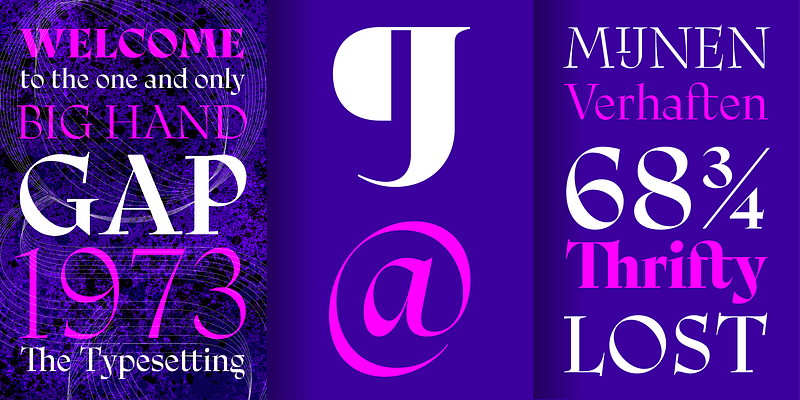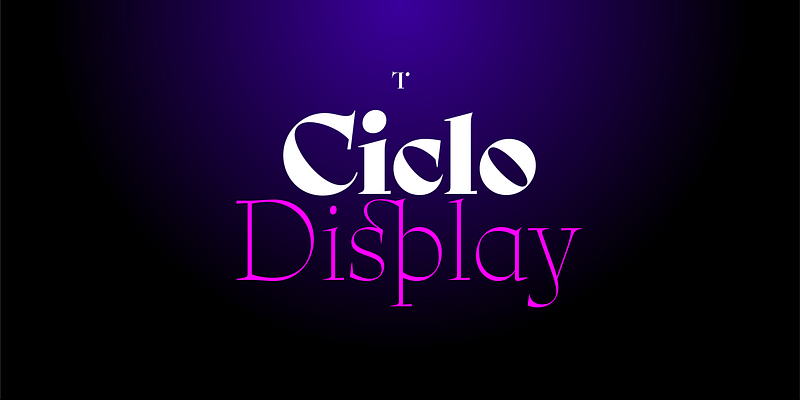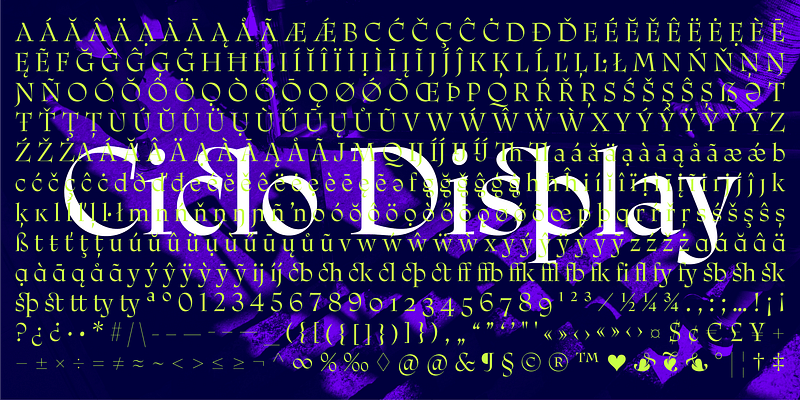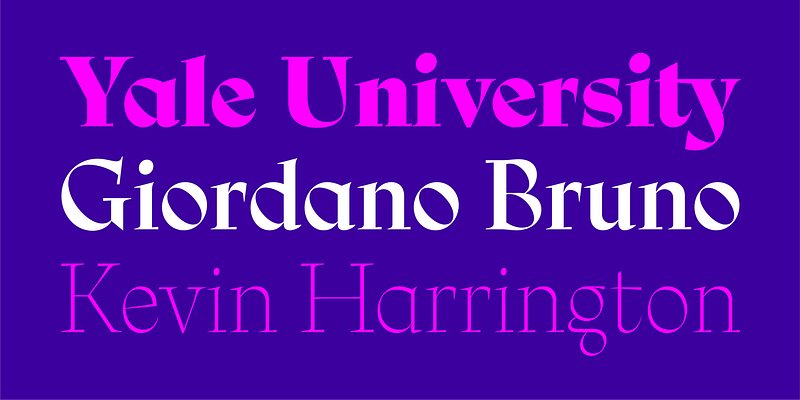
Ciclo is a type system inspired by the work of Lucian Bernhard, specifically Bernhard Modern, with high contrast and a dramatically inclined axis. The inclination of the inner axis, nearly 45 degrees in some characters, was found to be a particularly intriguing aspect. To that end, I have endeavored to preserve a notably steep angle in the majority of the characters within the Display family. The system will also include a Text family with a lower contrast and tilt angle for easier reading. The name “Ciclo” is derived from the existing rotation on the internal axis of the characters and the interpolation between the Display and Text versions, in search of a third variant (Subhead) in which this angle is a factor that determines the optical sizes of the different variants.